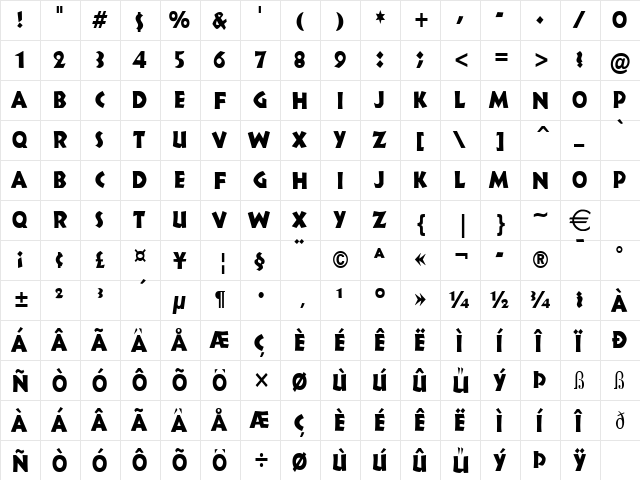
IndyCondensed Normal
IndyCondensed Normal Font Preview
IndyCondensed Normal
Design Context for IndyCondensed Typeface
IndyCondensed is a composed and adaptable typeface that performs quietly and consistently across a wide range of design contexts. The condensed width makes it efficient for tight spaces without sacrificing legibility.
Pro Tip: Use IndyCondensed in both headline and body roles to test its range before committing to a single application.